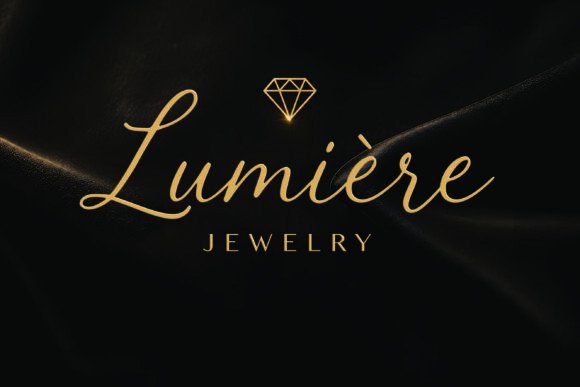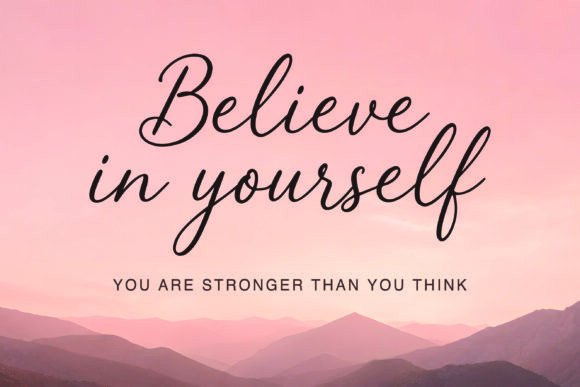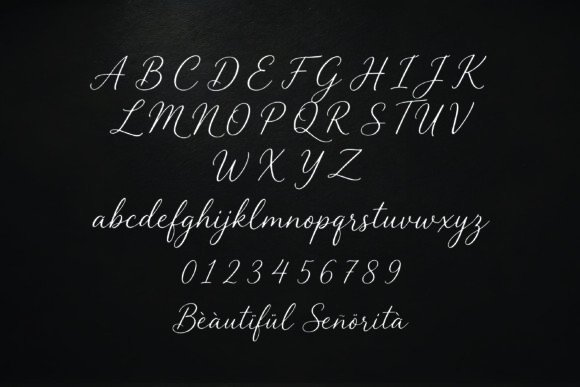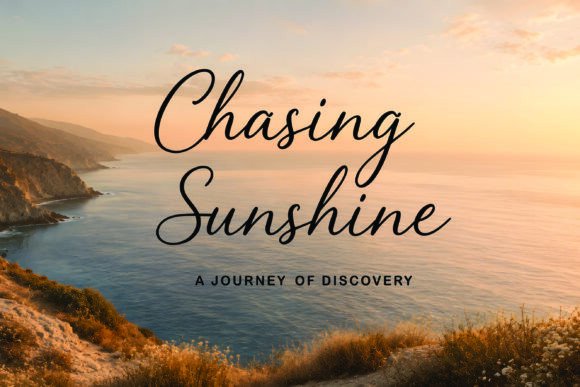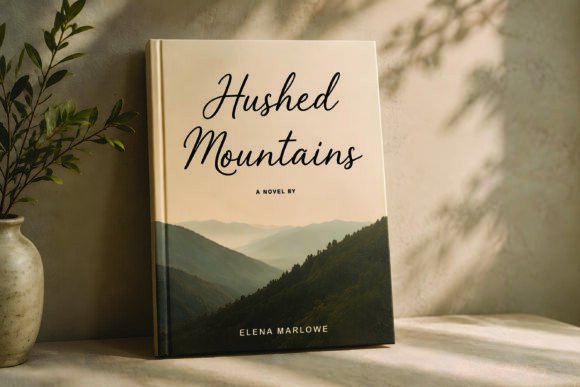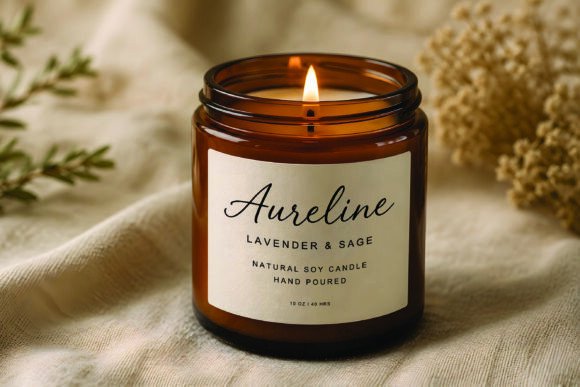
Aurelia Font: Elevate Your Design with Elegance and Sophistication
In the world of typography, few fonts manage to strike the perfect balance between elegance and modernity. Aurelia Font is one such exceptional typeface that embodies the essence of luxury and sophistication. Crafted with meticulous attention to detail, Aurelia is an elegant and modern signature script font designed to elevate your design projects with its graceful curves and delicate handwritten flow.
The Characteristics of Aurelia Font
Aurelia’s design is characterized by its thin strokes, smooth connections, and refined letterforms. These features come together to create a font that exudes a sense of luxury and sophistication, making it perfect for premium design projects. The font’s stylish handwritten appearance is both feminine and professional, allowing it to seamlessly integrate into a wide range of design applications.
Aurelia’s versatility makes it an excellent choice for various design projects. Whether you’re working on branding, logos, wedding invitations, social media graphics, fashion editorials, packaging, or elegant typography compositions, Aurelia is sure to make a lasting impression. Its timeless script style combines simplicity and beauty, ensuring that your designs feel both contemporary and classic.
Key Features of Aurelia Font
- Elegant and Modern Design: Aurelia boasts a graceful and contemporary look, perfect for designers seeking a sophisticated typeface.
- Thin Strokes and Smooth Connections: The font’s delicate strokes and seamless connections create a fluid and natural handwritten feel.
- Refined Letterforms: Each letterform in Aurelia is carefully crafted to contribute to the font’s overall sense of luxury and elegance.
- Versatile and Adaptable: Suitable for a wide range of design projects, from branding and logos to wedding invitations and fashion editorials.
- Feminine yet Professional: Aurelia strikes the perfect balance between femininity and professionalism, making it ideal for designs that require a touch of elegance.
- Excellent Readability: Despite its elegant and delicate nature, Aurelia maintains excellent readability, ensuring that your messages are conveyed clearly and effectively.
Why Choose Aurelia Font?
In a sea of fonts, Aurelia stands out for its unique blend of charm, class, and authenticity. Designers and crafters can rely on Aurelia to bring a touch of sophistication to their work without compromising on readability or aesthetic appeal. Here are a few reasons why Aurelia should be your go-to font for your next design project:
- Unique and Memorable: Aurelia’s distinctive style ensures that your designs will stand out and be remembered.
- High-Quality Design: Crafted with precision and attention to detail, Aurelia reflects a high level of design expertise.
- Time-Saving: With Aurelia, you can achieve professional-looking results quickly, saving you time and effort in the design process.
- Versatility Across Mediums: Whether your project is digital or print, Aurelia performs exceptionally well across various mediums.
How to Use Aurelia Font Effectively
To make the most of Aurelia Font, consider the following tips:
- Pair with Complementary Fonts: Combine Aurelia with clean sans-serif or serif fonts to create visual interest and hierarchy in your designs.
- Use for Headers and Titles: Aurelia’s elegant nature makes it perfect for headers and titles, where you want to make a strong visual impact.
- Experiment with Colors: While Aurelia looks stunning in classic black or dark colors, don’t be afraid to experiment with different colors to match your brand’s palette or design theme.
- Consider Line Spacing: To maintain readability, ensure that you use adequate line spacing, especially when working with longer texts.
| Font Name | Aurelia Font |
| Author | basyar |
Aurelia Font is a masterpiece of modern typography, offering designers and crafters a versatile and elegant typeface for their creative projects. With its delicate strokes, smooth connections, and refined letterforms, Aurelia brings a sense of luxury and sophistication to any design. Whether you’re working on a branding project, wedding invitation, or fashion editorial, Aurelia is sure to elevate your work with its timeless script style and natural handwritten feel. Make Aurelia a part of your design toolkit and discover the difference it can make in your creative endeavors.